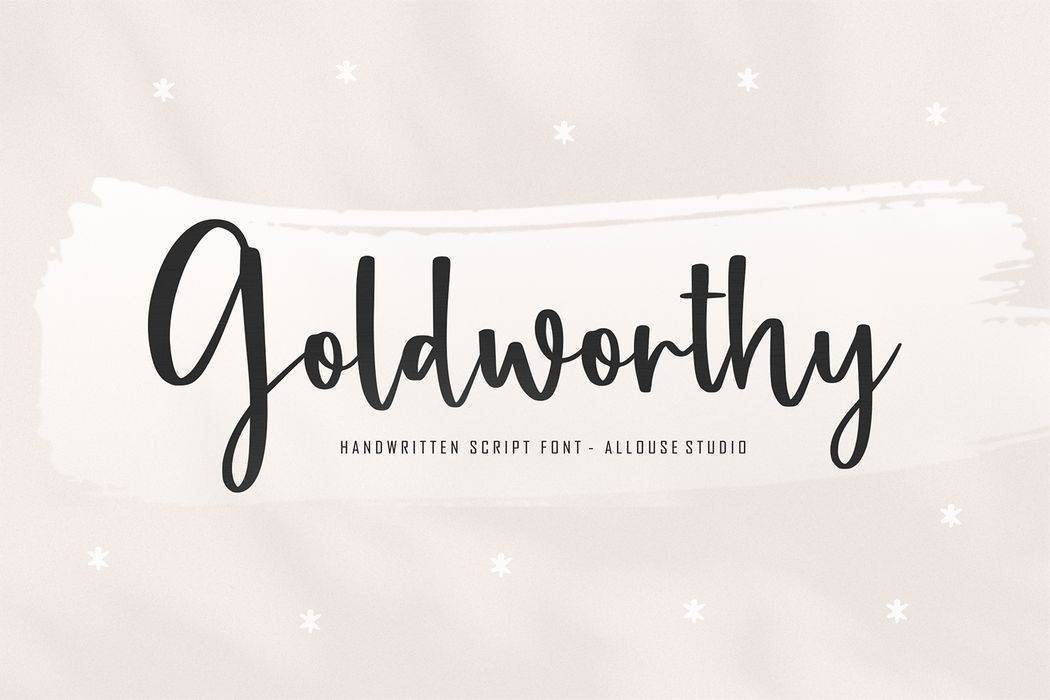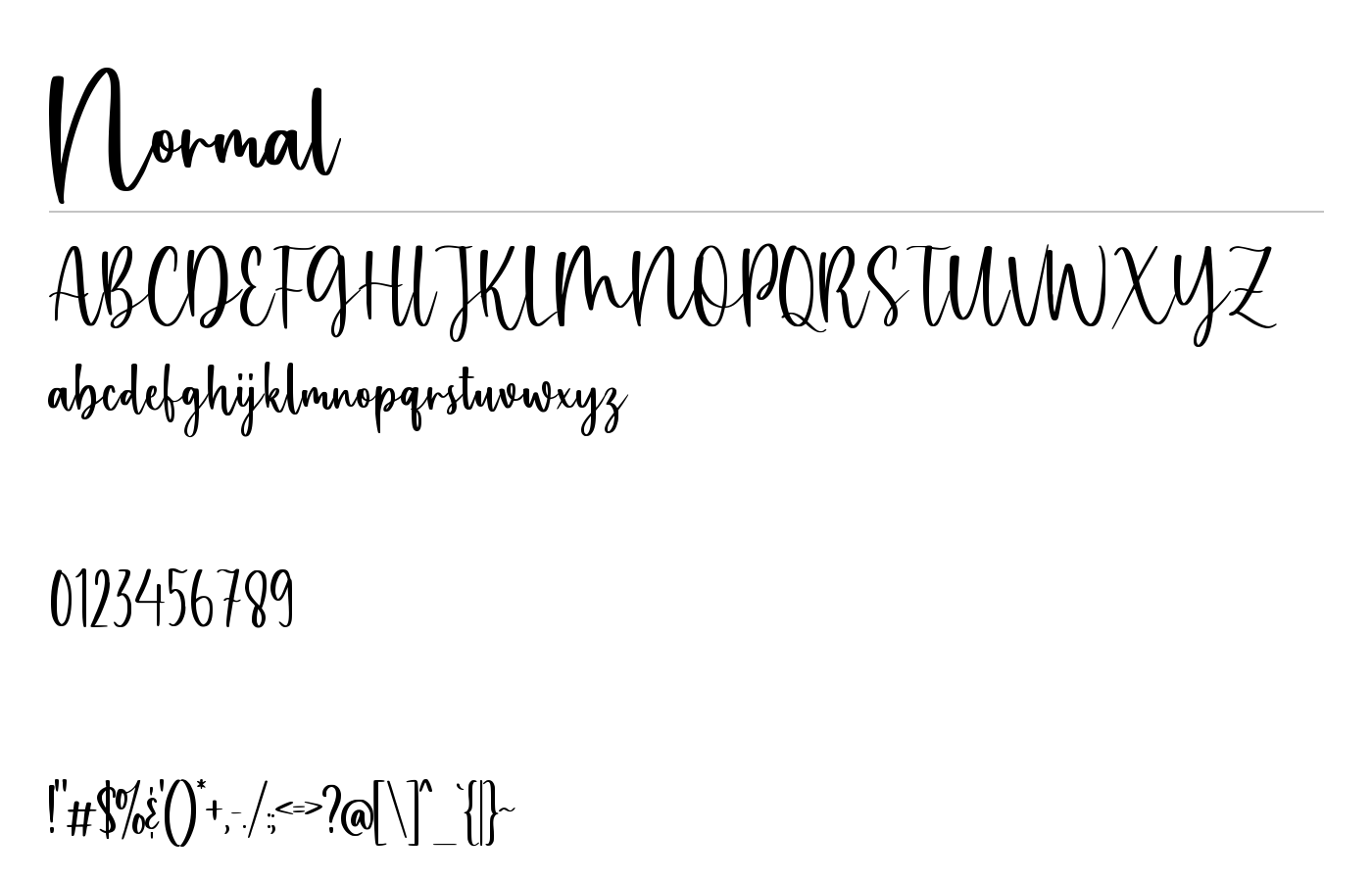
Goldworthy Font is a charming handwritten script featuring slender, elegant strokes with a natural, flowing style that gives it a personal and friendly feel. Its tall x-height, delicate curves, and varied letterforms make it perfect for creative projects like invitations, branding, and social media, where a touch of warmth and casual sophistication is desired. This font shines in designs that want to convey approachability and stylish simplicity.
Goldworthy Font
About Goldworthy Font